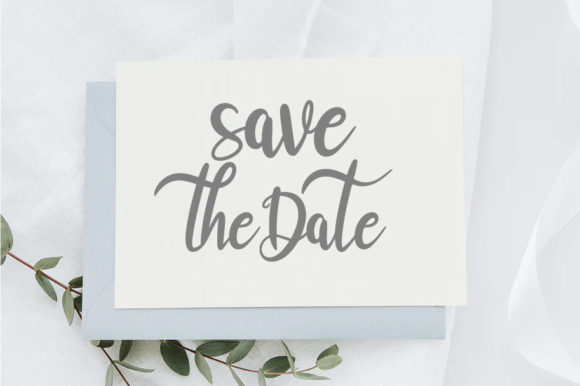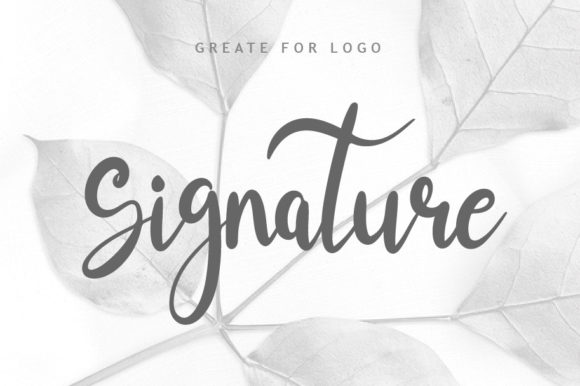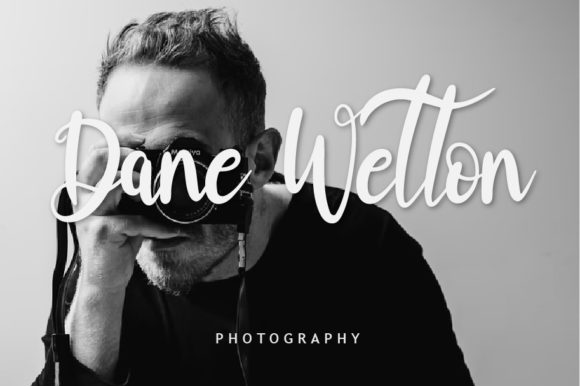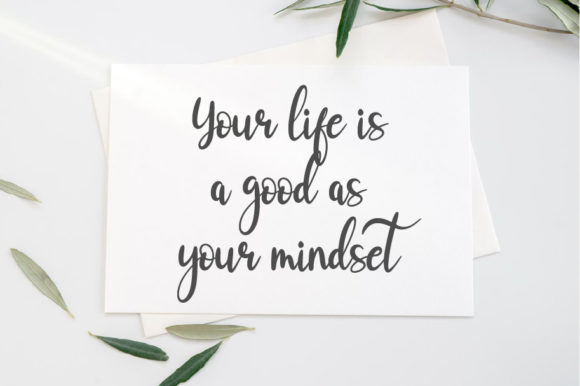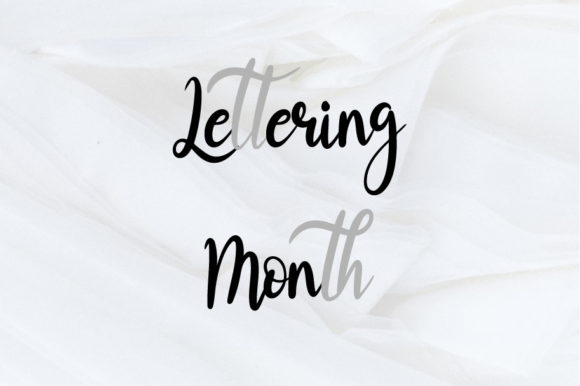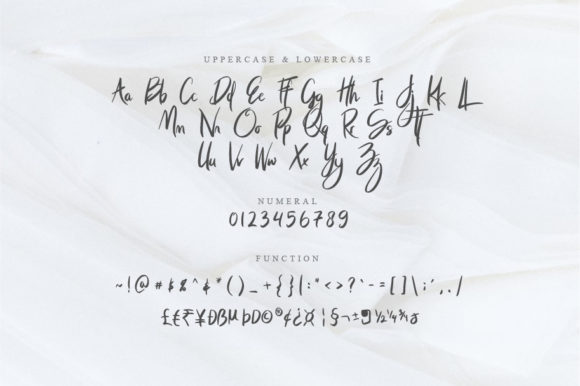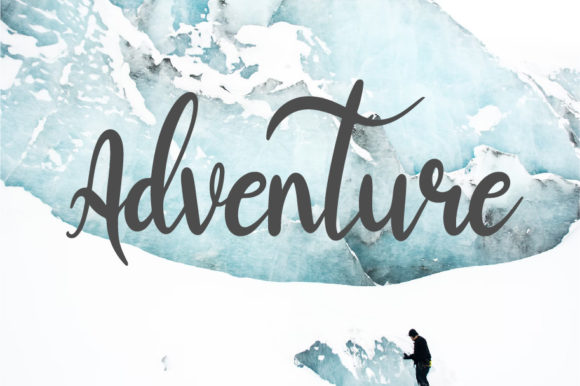
Dobest Font
About Dobest Font
Dobest Script is a lovely and timeless handwritten font. It is the best choice for creating eye catching logos, branding and quotes. Every letter has a unique and beautiful touch, which will make your design come alive!